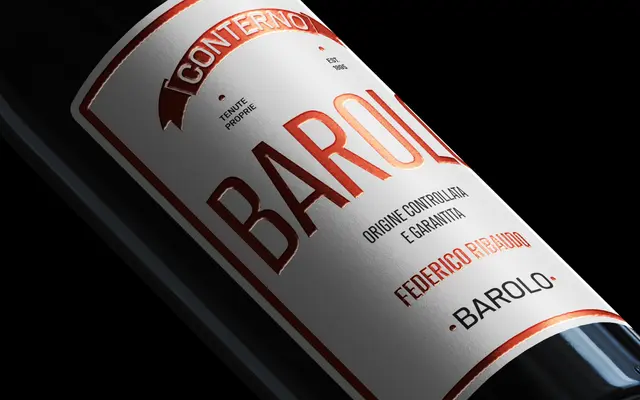
Cairoli Now
Zetafonts · Cosimo Lorenzo Pancini, Mario De Libero · 2020
A 2020 revival of the 1928 Nebiolo grotesque Cairoli, expanded into a superfamily with a contemporary Now branch and a faithful Classic branch, each available across three widths and seven weights.
Originally cast by Italian foundry Nebiolo as a license of Wagner & Schmidt's Neue moderne Grotesk, Cairoli predated the grotesque superfamily format by decades. The Now branch raises the x-height for text and digital use, adds inktraps and round punctuation, and slightly softens the curves, while the Classic branch preserves the original low x-height and display character, including hook cuts in curved letters, the high-waisted R and squared ovals. The full family runs to 84 static styles plus four variable fonts covering weight and width axes, with OpenType features and coverage of over 200 Latin-script languages.
A revival of the 1928 Nebiolo grotesque Cairoli, itself a license of Wagner & Schmidt's Neue moderne Grotesk, placing it firmly in the nineteenth-century grotesque tradition alongside Akzidenz-Grotesk and Aurora.